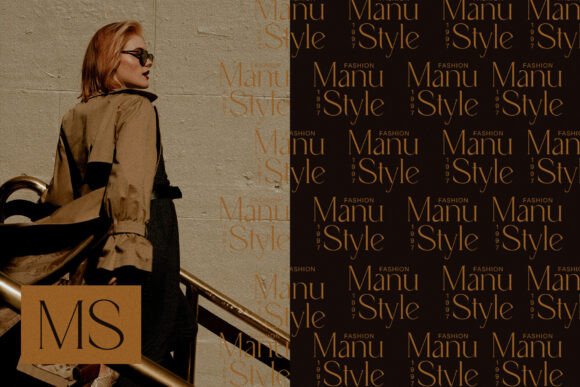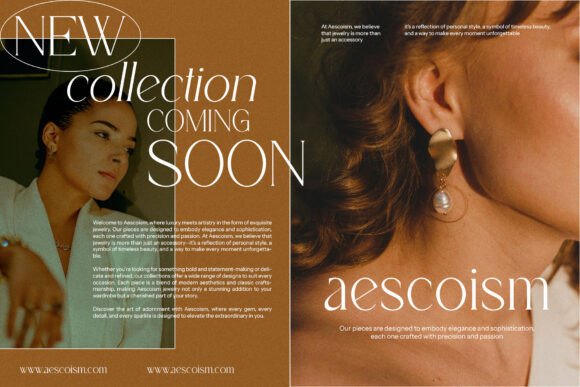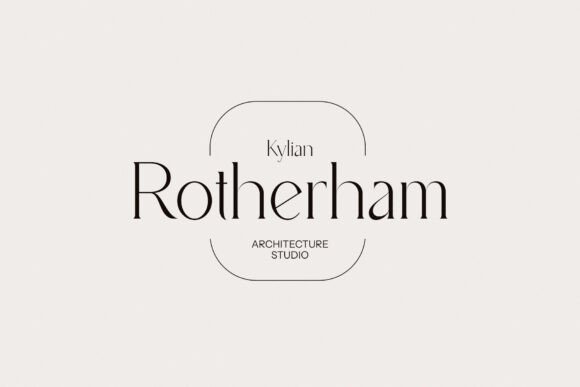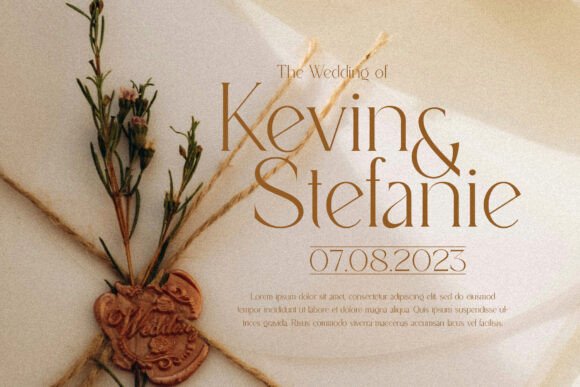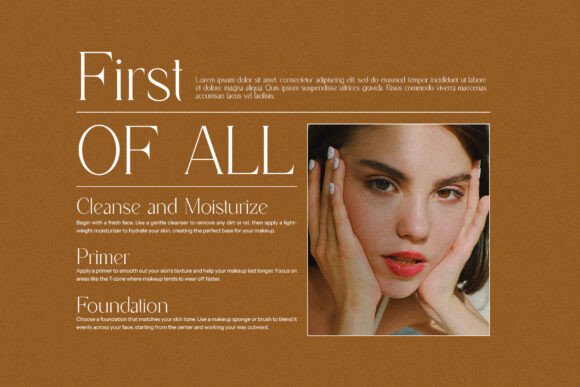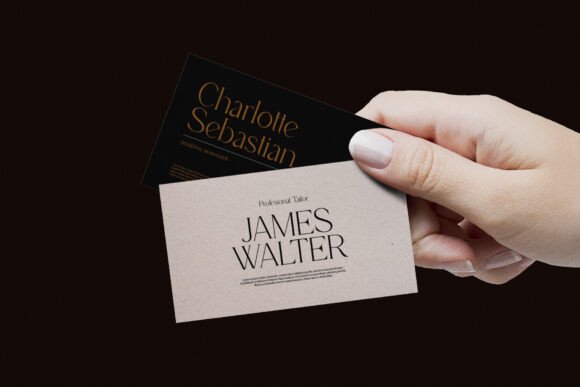
The Perfect Match for Your Next Design Project
Have you ever stared at a blank page, searching for the perfect font to bring your design to life? I’m sure you have – we’ve all been there. It’s a moment of pure creative agony, when the right words just won’t seem to fit with the right font. But what if I told you that there’s a solution to this age-old problem?
Enter the Galkgin Font, a modern serif font that’s designed to make your life easier. With its elegant lines and stylish curves, Galkgin Font is perfect for both headlines and body text, adding a touch of contemporary sophistication to any design. Whether you’re a seasoned designer or just starting out, Galkgin Font is a valuable addition to your toolkit.
Galkgin Font Key Features
- Unique Character Set: The font features a unique character set, including a wide range of Latin, Cyrillic, and Greek characters, as well as symbols and icons, making it suitable for multilingual designs.
- Script and Connection Options: Galkgin Font offers a range of script and connection options, including connecting and non-connecting scripts, allowing designers to create a wide range of styles and effects.
- Font Weight and Style Options: The font is available in a range of weights, from Light to Extra Bold, and styles, including Regular, Italic, and Bold Italic, providing designers with flexibility and versatility.
Galkgin Font Review
After working with the Galkgin Font, I have to say that I’m both impressed and disappointed at the same time. Let’s start with what works well. ✨ The font’s unique aesthetic is definitely a standout feature. It’s quirky and offbeat, which makes it perfect for projects that need a bit of personality. I also appreciate how well it scales, making it suitable for both small and large text sizes.
Here are some specific features that I like about the Galkgin Font:
- Unique and quirky aesthetic
- Scalable design
- Works well for projects that need a bit of personality
However, there are some limitations that I want to highlight. ⚠️ For one, the font’s readability can be a bit of an issue, especially at smaller sizes. This might make it difficult to use for projects where clarity is crucial. Additionally, the font’s consistency can be a bit off, with some letters looking more pixelated than others.
Overall, I’d say that the Galkgin Font is a great choice for projects that need a bit of flair, but it’s not the best option for projects that require high readability or consistency.
Tips for Getting the Most Out of Galkgin Font
Experiment with different font sizes and styles to achieve the desired effect.
Use Galkgin Font in conjunction with other creative elements to create visually appealing designs.
Consider using Galkgin Font for headings and titles to add a touch of elegance to your designs.
Galkgin Font is ideal for:
Business cards and marketing materials.
Artistic and creative projects.